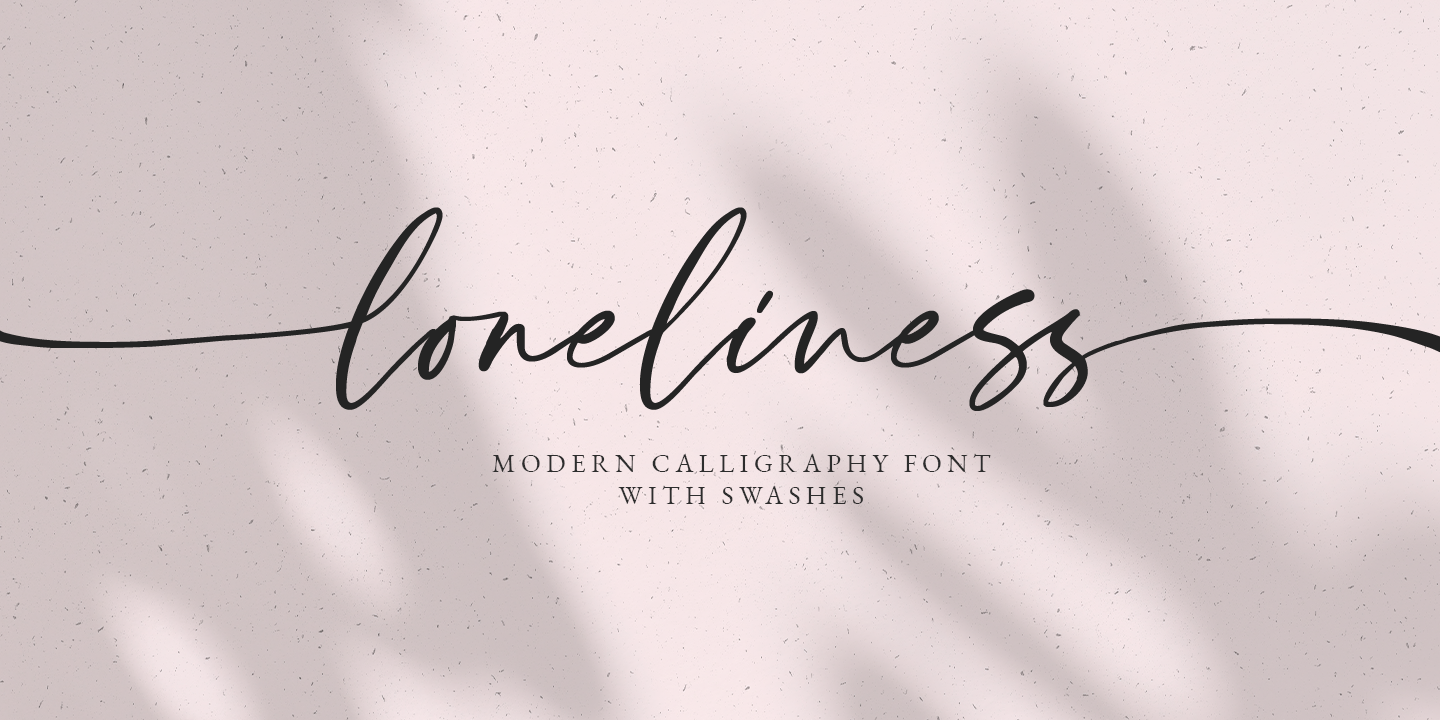
The Loneliness Font excels in various design applications including contemplative poetry publications, introspective book covers, melancholic art gallery materials, solitary meditation center communications, reflective mental health resources, thoughtful therapeutic practice identities, quiet indie music album artwork, intimate journal designs, contemplative film poster typography, and profound emotional projects that demand solitary elegance and introspective sophistication.
What makes the Loneliness Font exciting is its profound embodiment of solitary contemplation and emotional depth through letterforms that capture the essence of quiet reflection and the beautiful melancholy found in moments of solitude. This typeface demonstrates exceptional emotional resonance through carefully crafted characters that suggest the gentle silence of empty spaces, the peaceful contemplation of solitary moments, and the profound beauty that emerges from introspective experiences. The font's contemplative personality makes it perfect for therapeutic organizations and artistic projects seeking to communicate emotional authenticity, reflective depth, and the kind of honest vulnerability that creates meaningful connections through typography that literally whispers with solitary grace.
The Loneliness Font family typically includes contemplative weight variations that enhance the introspective aesthetic, featuring delicate styling options and extended character sets optimized for emotional communications and therapeutic applications. These family options often include solitary alternates, reflective symbols, and contemplative decorative elements that provide designers with comprehensive tools for creating authentically emotional typography that honors the complexity of human feelings while maintaining contemporary design appeal and therapeutic sensitivity.
Mental health professionals and contemplative organizations consistently choose Loneliness Font Free Download for projects requiring typography that communicates emotional depth and introspective understanding. This typeface delivers exceptional performance in therapeutic marketing, emotional wellness branding, and contemplative communications where establishing empathy and creating safe spaces for vulnerable expression is essential for healing connection. The font's solitary character makes it particularly effective for mindfulness and poetry applications. Download Loneliness Font Free Download today to access this emotionally resonant typeface that transforms contemplative communications with its introspective elegance and solitary sophistication, creating compelling emotional experiences that honor the profound beauty found in quiet moments while celebrating the courage required for authentic self-reflection and meaningful emotional expression.